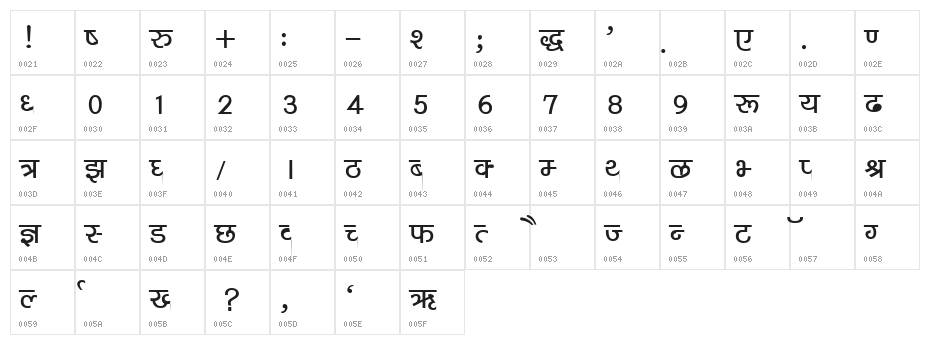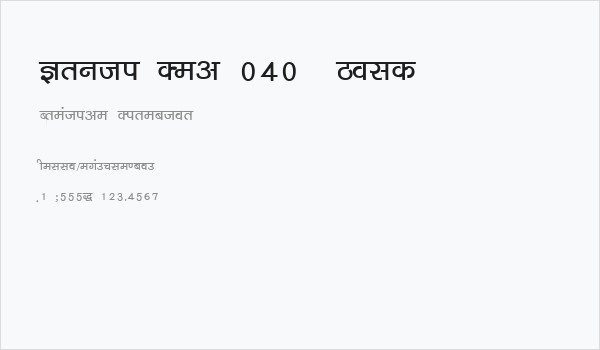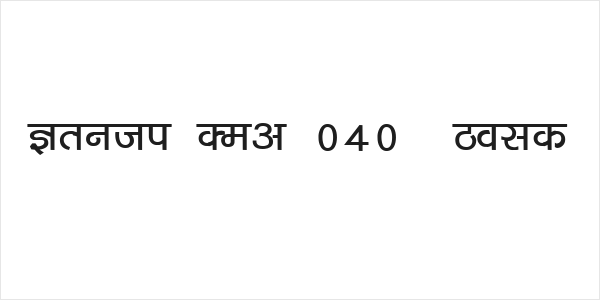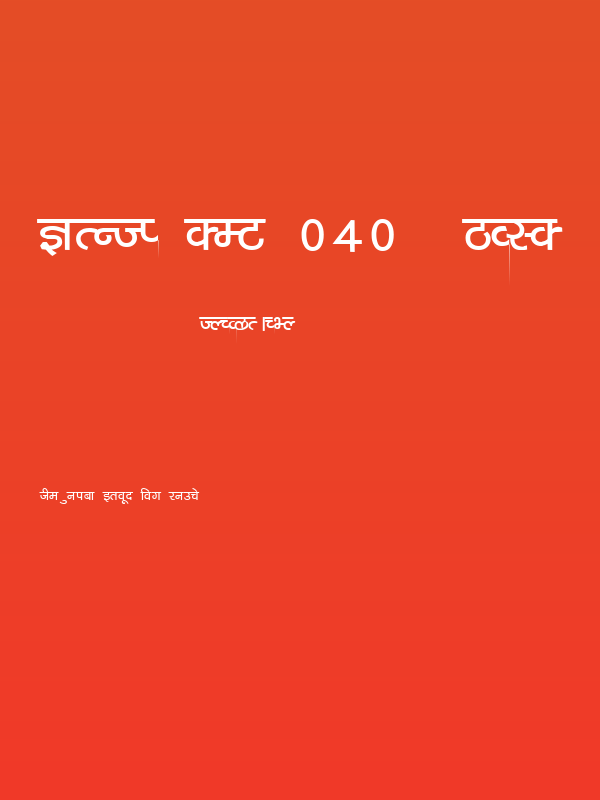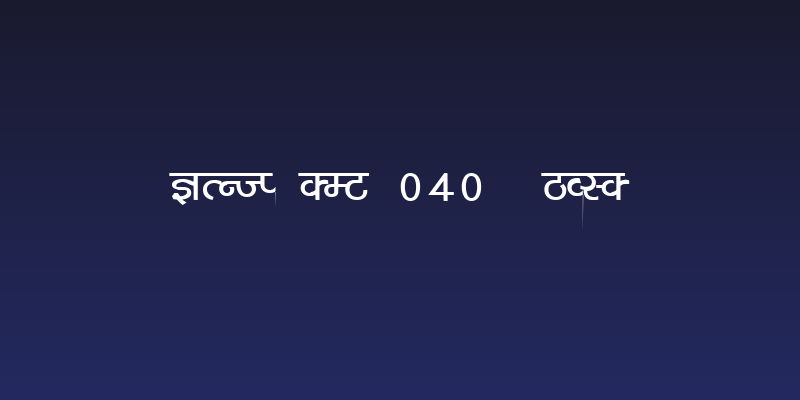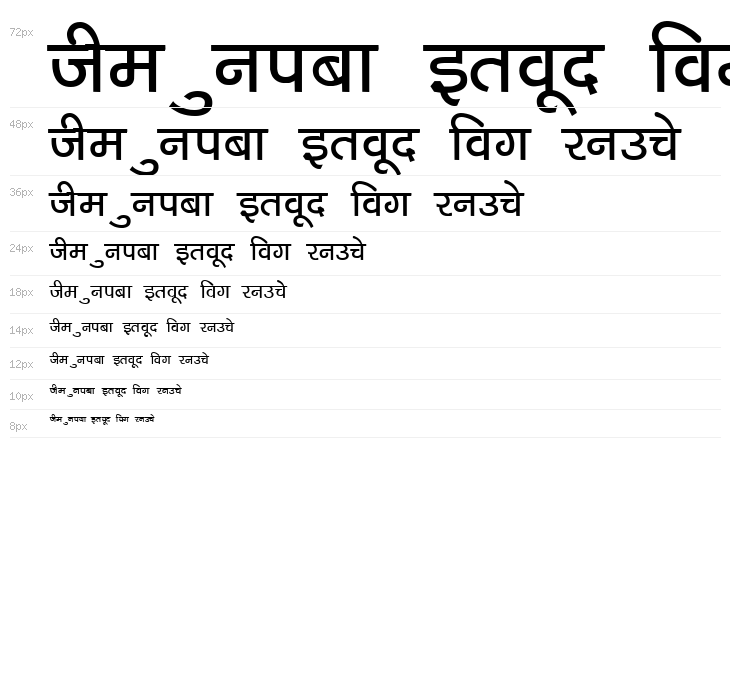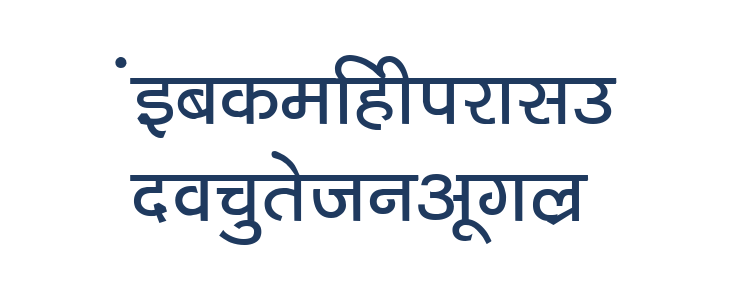
Kruti Dev 040 Bold Font
Kruti Dev 040 Bold Description
This font exhibits a bold and structured design, characterized by its strong and prominent strokes. The characters are well-defined with a consistent thickness, providing a clear and legible appearance. The font includes a full set of Devanagari script characters, numerals, and a variety of punctuation marks. Its bold nature makes it ideal for headings and titles, ensuring that the text stands out. The spacing between characters is balanced, allowing for easy readability while maintaining a compact look. The overall style is modern yet retains a traditional touch, making it versatile for various applications.
| Use Case | Headlines, Signage, Posters |
| Proposed Projects | Ideal for use in headlines, signage, posters, and any project requiring a strong visual impact. |